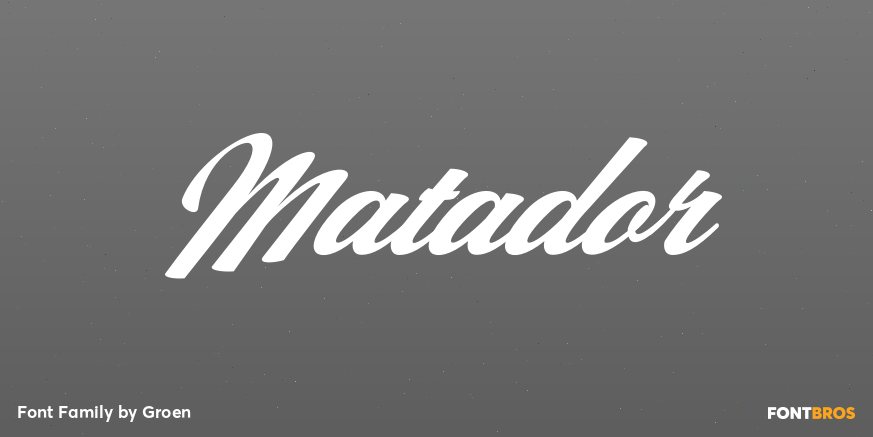
Matador
About Matador
Matador is a bold, stylized calligraphic script with over 400 glyphs and 205 alternate characters, including initial and terminal letters, alternates, ligatures and multiple language support. Files included: Matador.otf Matador.ttf Great for headings,…